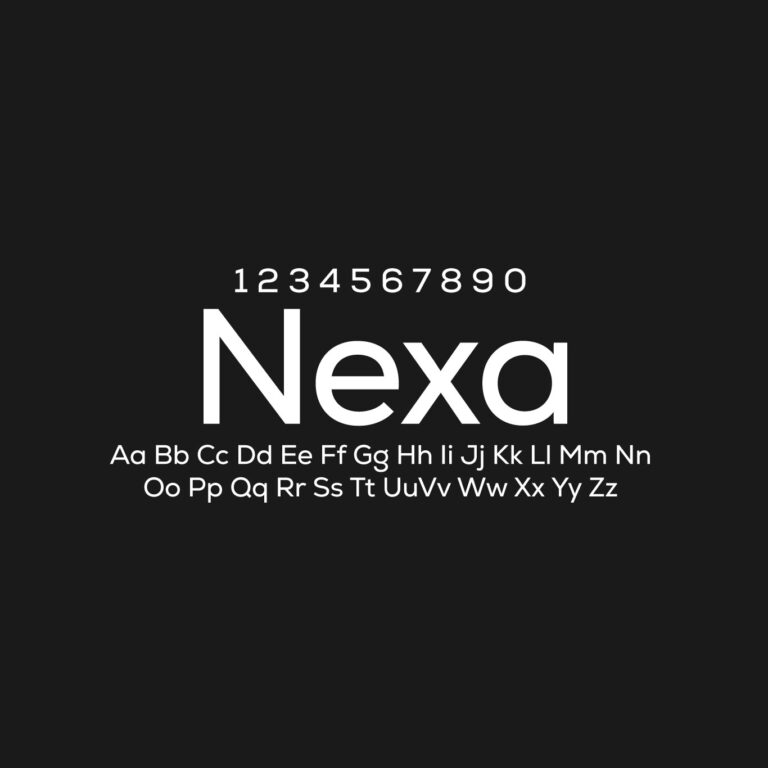
Nexa is a geometric sans-serif typeface designed by Svetoslav Simov and released by Fontfabric. It has clean construction, rounded geometric forms and a modern professional tone that works well for logos, branding systems, websites and digital layouts.
The family is especially useful when you want a geometric sans that feels polished but not too cold. It works well for app interfaces, posters, packaging, presentations, social media graphics, editorial layouts and contemporary visual identity projects.
Design Notes
Nexa has the clean rhythm of a geometric sans-serif, but it does not feel as rigid as Futura-style classics. The shapes are rounded, balanced and friendly enough for modern brand systems.
Use Nexa when you need a modern geometric font with a commercial, startup-friendly feel. It is especially effective in short text, brand marks, navigation, section titles and clean presentation layouts.
Nexa vs Nexa Text
Nexa is strongest as a display and branding family. Nexa Text is the related subfamily made for longer reading, with proportions better suited to paragraphs, editorial layouts and UI text.
If your project needs large headlines, logos or short brand messages, use Nexa. If the layout depends on longer passages, Nexa Text may be the better option.